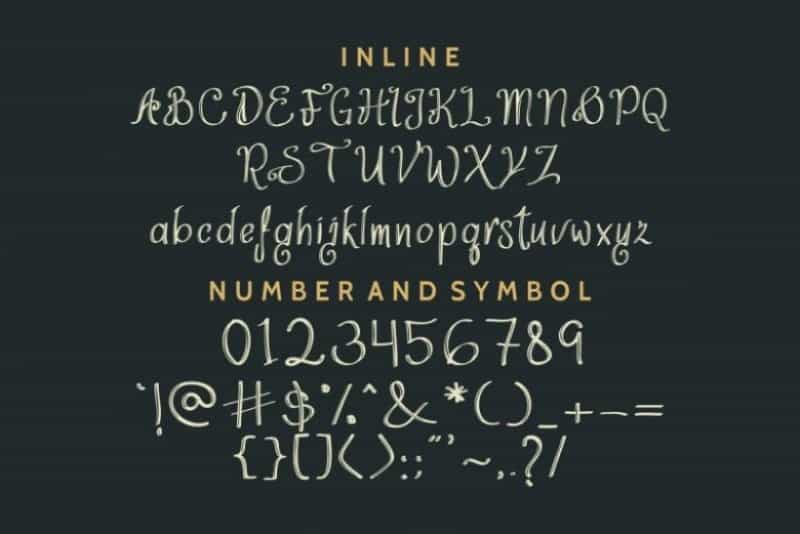
Good night Everyone!Please meet our newest font : ThinkDreams Script Font!This is a new modern letter script handwriting font. It is a one of a kind and at the same time a very elegant and stylish font. Would the best fit for any handwritten project ,comic , branding, promo, wedding, etc